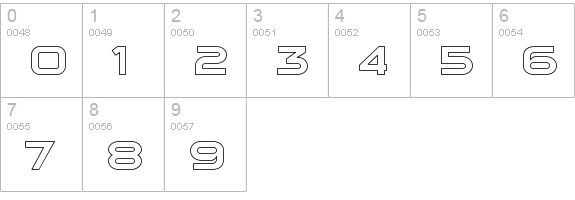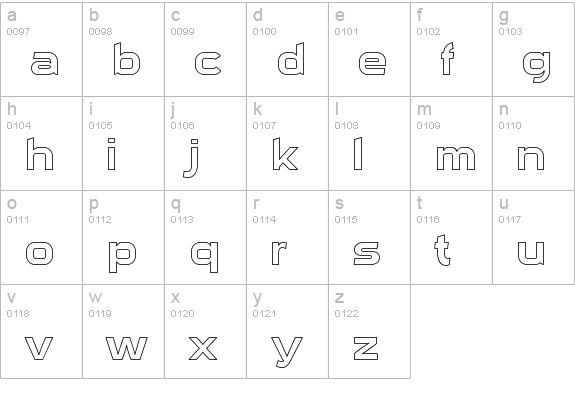
Sui Generis Outline Font Details
Sui Generis Outline is a modern and stylish font that exudes sophistication and elegance. Its sleek lines and unique design make it perfect for a variety of design projects, from branding to packaging to social media graphics. The outline style adds a touch of contemporary flair, making this font stand out from the crowd. What sets Sui Generis Outline apart is not only its visual appeal but also the fact that it is completely free to download. That's right, this high-quality font is available for free at FontsMarket.com, making it accessible to designers of all levels. So why wait? Enhance your projects with the striking Sui Generis Outline font today!